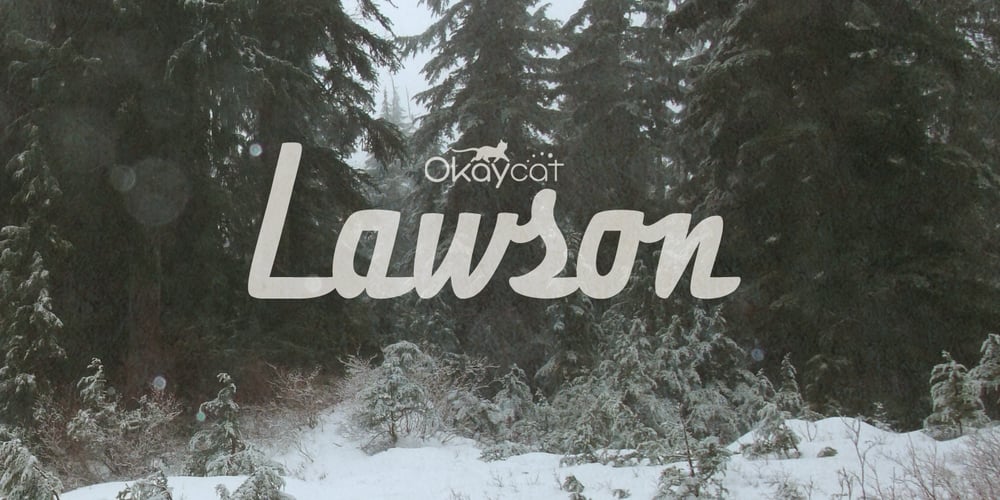
Lawson Font Family was designed by Natsuko Hayashida and published by Okaycat. Lawson contains 1 styles and family package options. Okaycat Font Foundry proudly presents “Lawson”! A retro classic style font, perhaps futuristic, containing European accents. Beautifully connected cursive with high legibility and style for your design, great for print and publication. See the new textured version Lawson Vintage please.